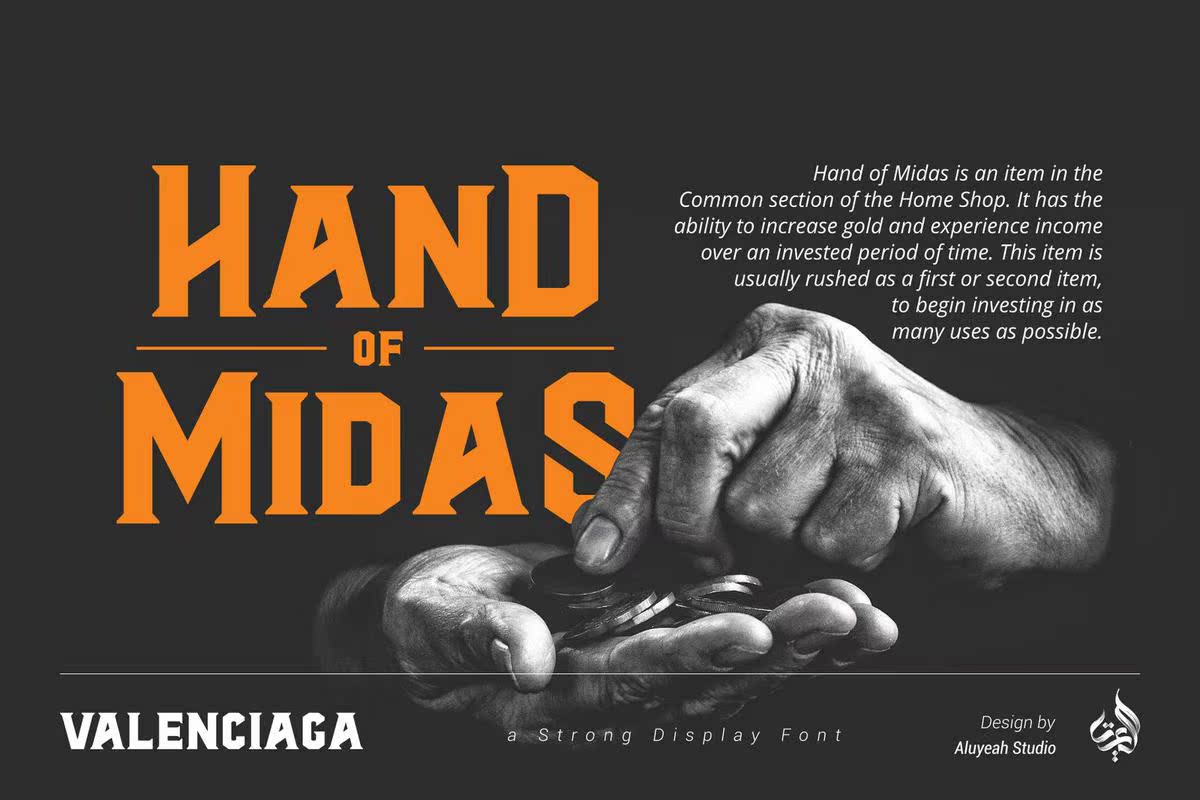
VALENCIAGAisastrongdisplayfont.Valenciagaisafully-KernedTitleCasedDisplayTypeBuilt for StrongDesignVibe.VALENCIAGAisastrongdisplayfont.Valenciagaisafully-KernedTitleCasedDisplayTypeBuilt for StrongDesignVibe。